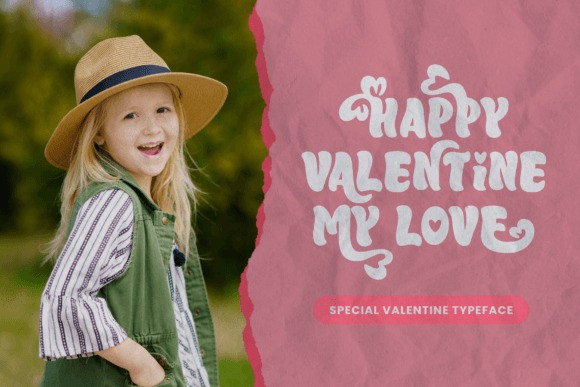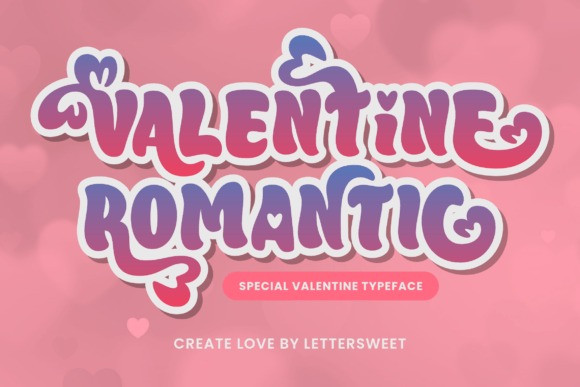
Valentine Romantic Font
Valentine Romantic Display Font is a fun, sweet, and incredibly charming display font. This font is special for Valentine’s Day. It embodies playfulness and authenticity and is the perfect choice for any Valentine’s Day project.